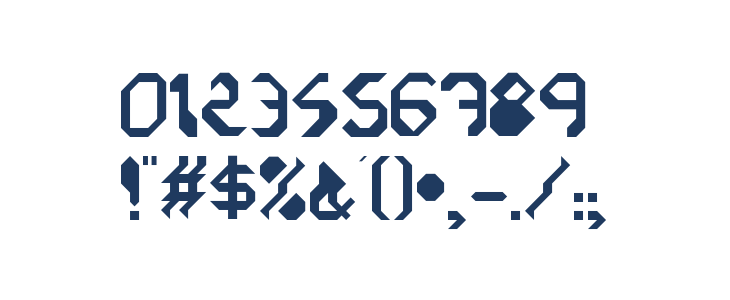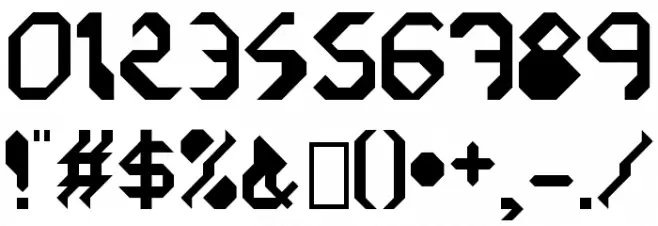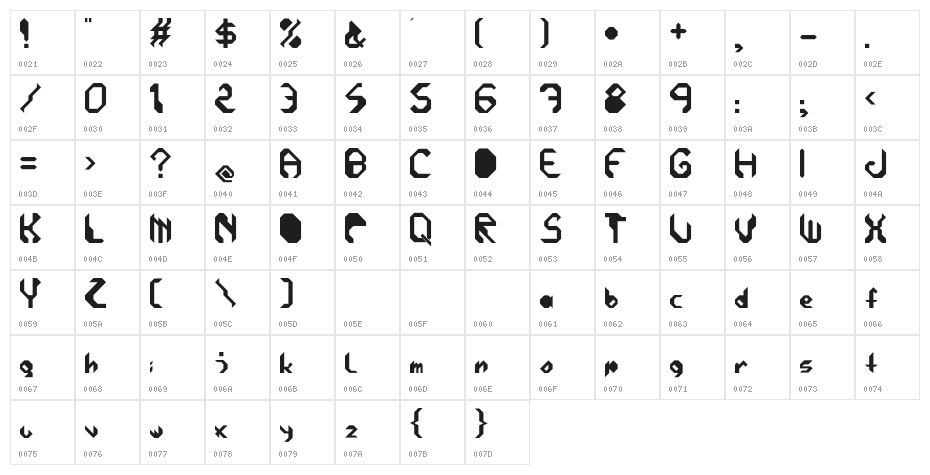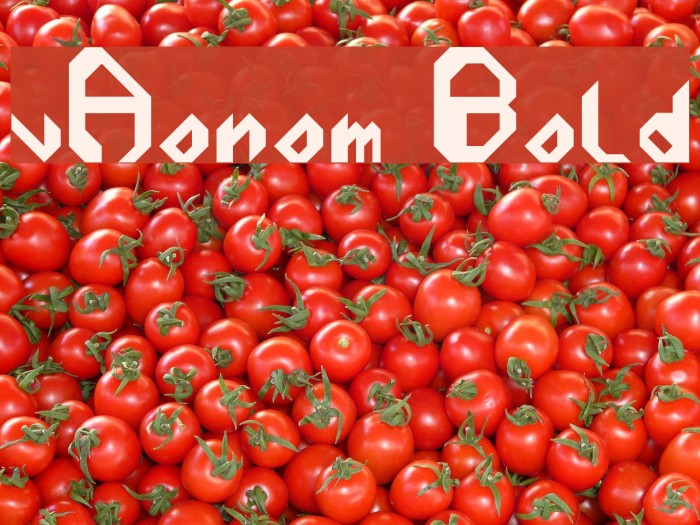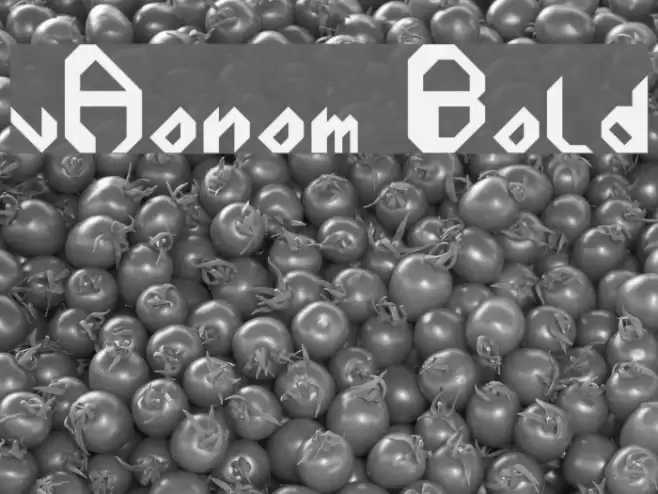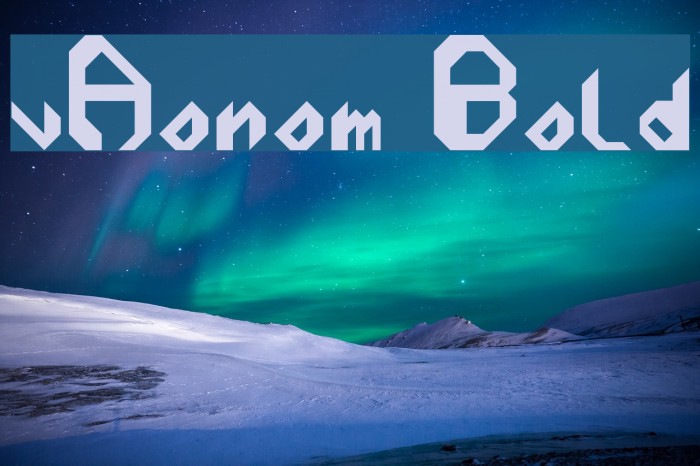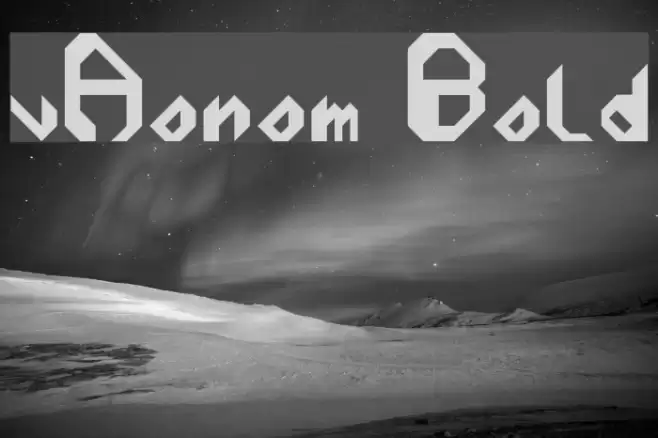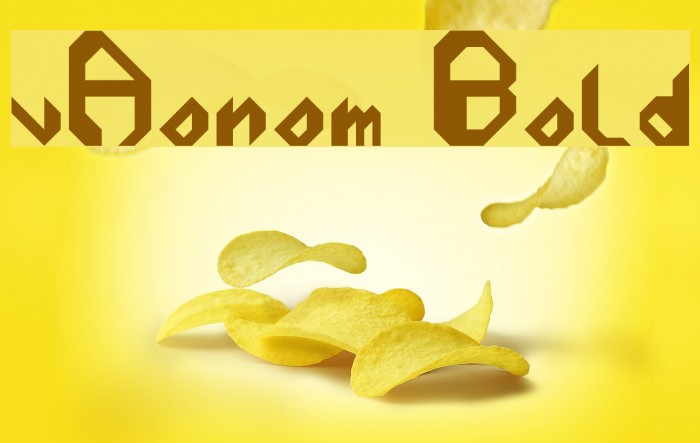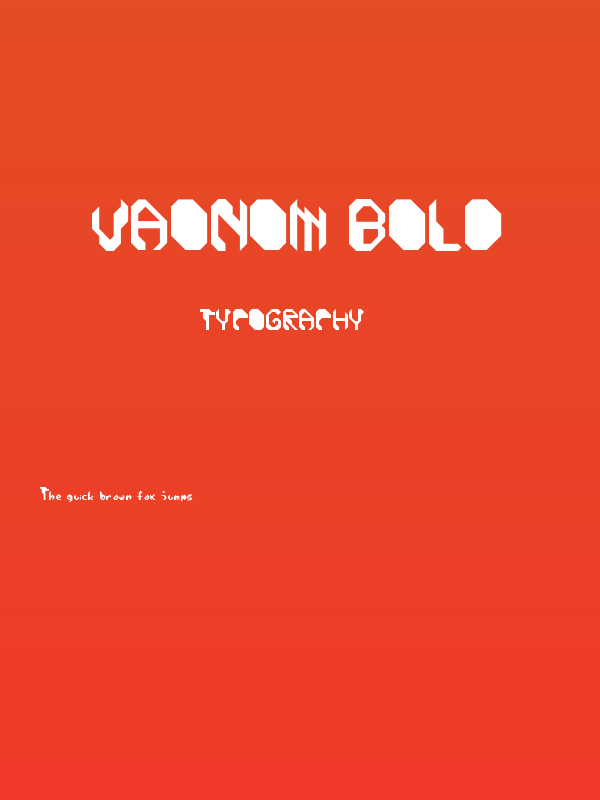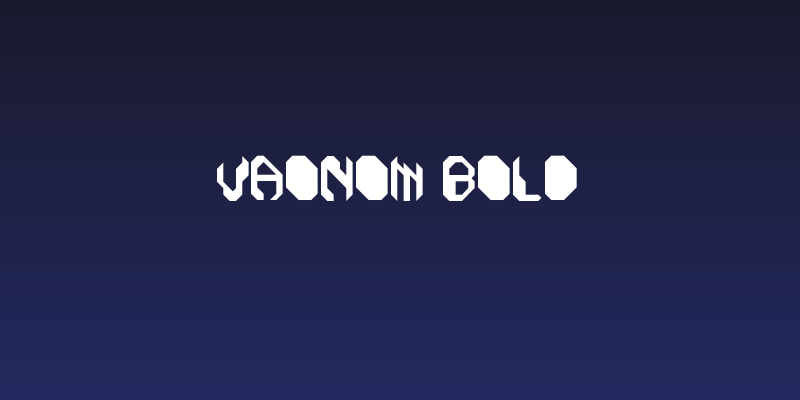
vAonom Bold Font
vAonom Bold Description
This font features a bold and geometric design with sharp angles and a futuristic aesthetic. The characters are constructed with a combination of straight lines and angular cuts, creating a dynamic and edgy appearance. The uppercase letters are particularly striking, with a blocky and robust form that commands attention. The lowercase letters maintain the same angular style, ensuring consistency throughout the typeface. Numbers and special characters are equally bold and geometric, making them stand out. This font is ideal for projects that require a modern and impactful look.
| Proposed Projects | Ideal for branding, posters, video game graphics, and sci-fi themed projects. |